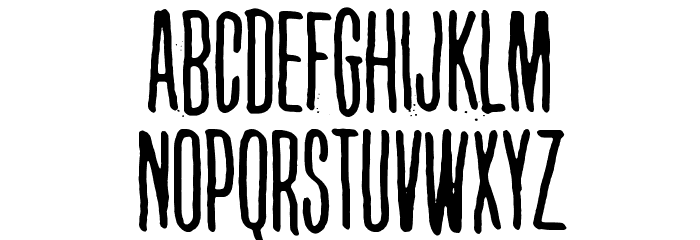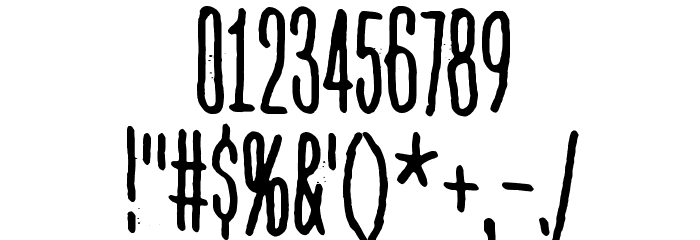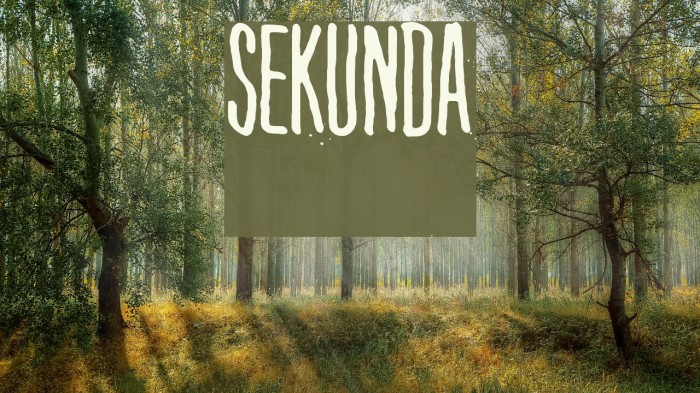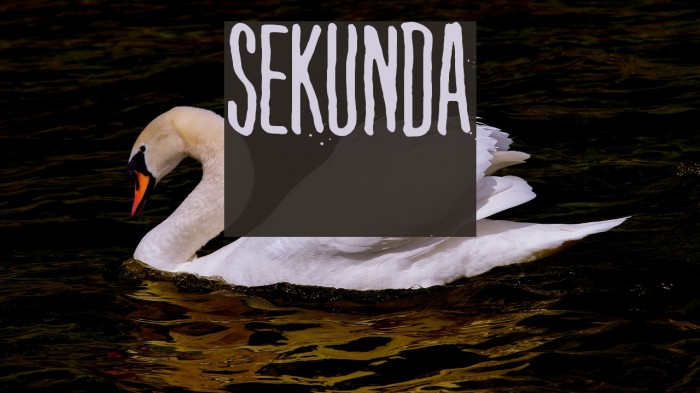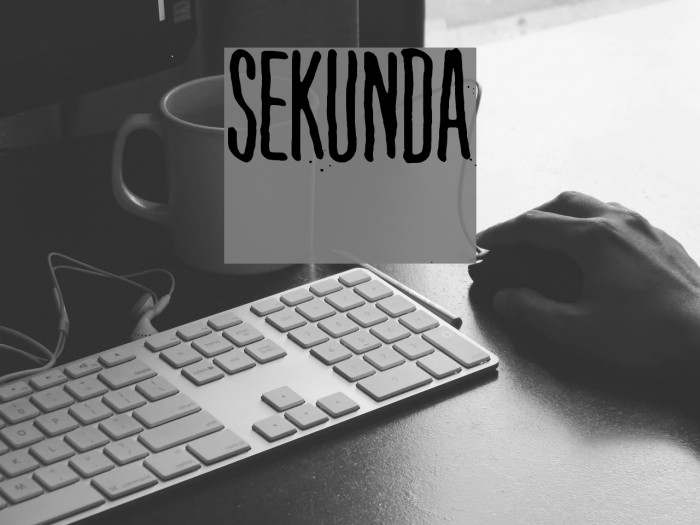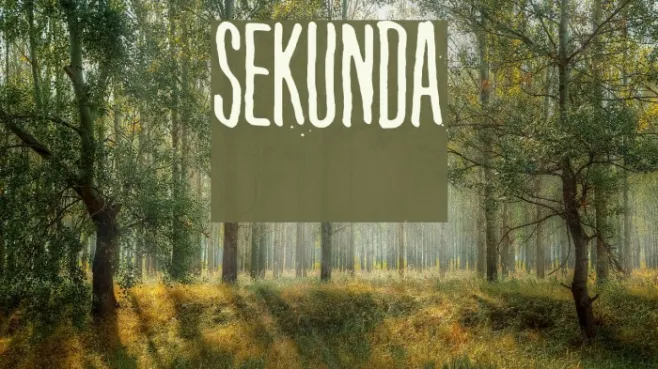
Sekunda Font
This font features a bold, hand-drawn style with a slightly distressed appearance, giving it a rustic and organic feel. The characters are tall and narrow, with uneven edges that add a sense of authenticity and charm. The uppercase and lowercase letters maintain a consistent style, while the numbers and special characters complement the overall aesthetic. The font's unique texture and irregularities make it stand out, ideal for projects that require a touch of personality and creativity.
A bold, hand-drawn font with a rustic, distressed appearance.
- Proposed Projects: Ideal for branding, posters, packaging, and any creative projects that require a handcrafted touch.